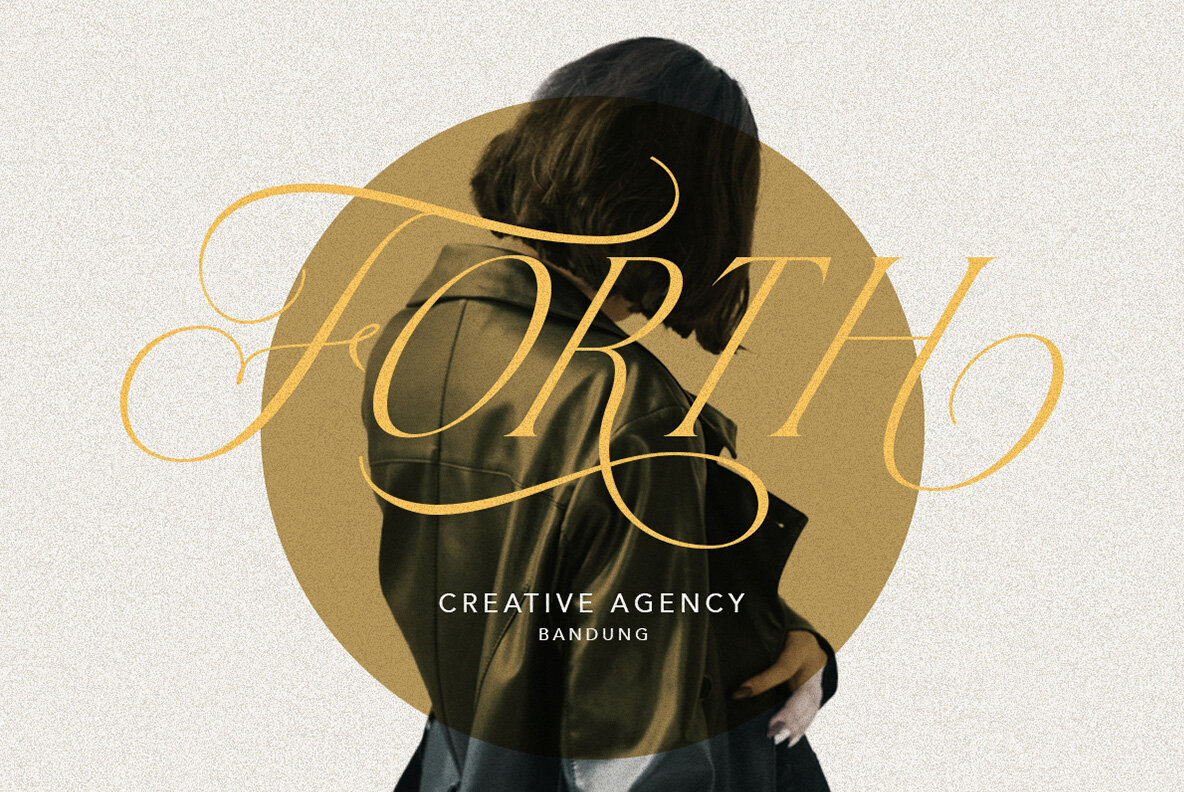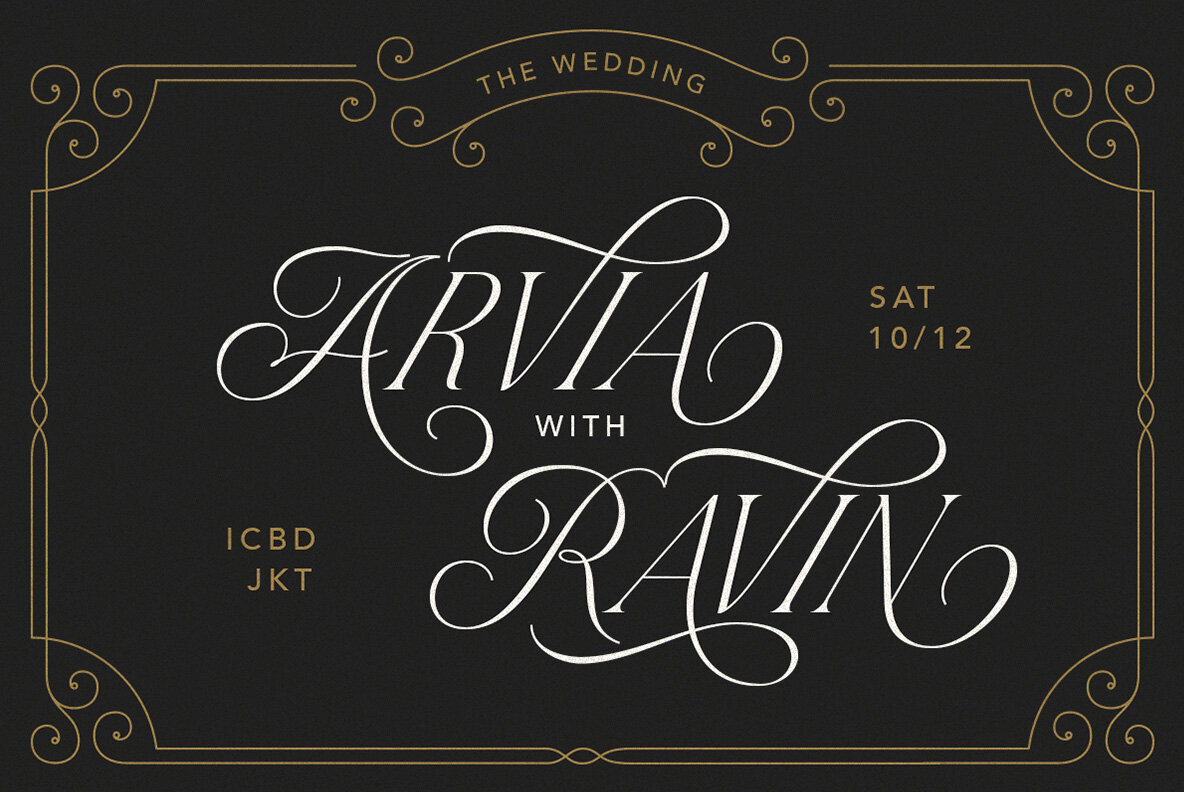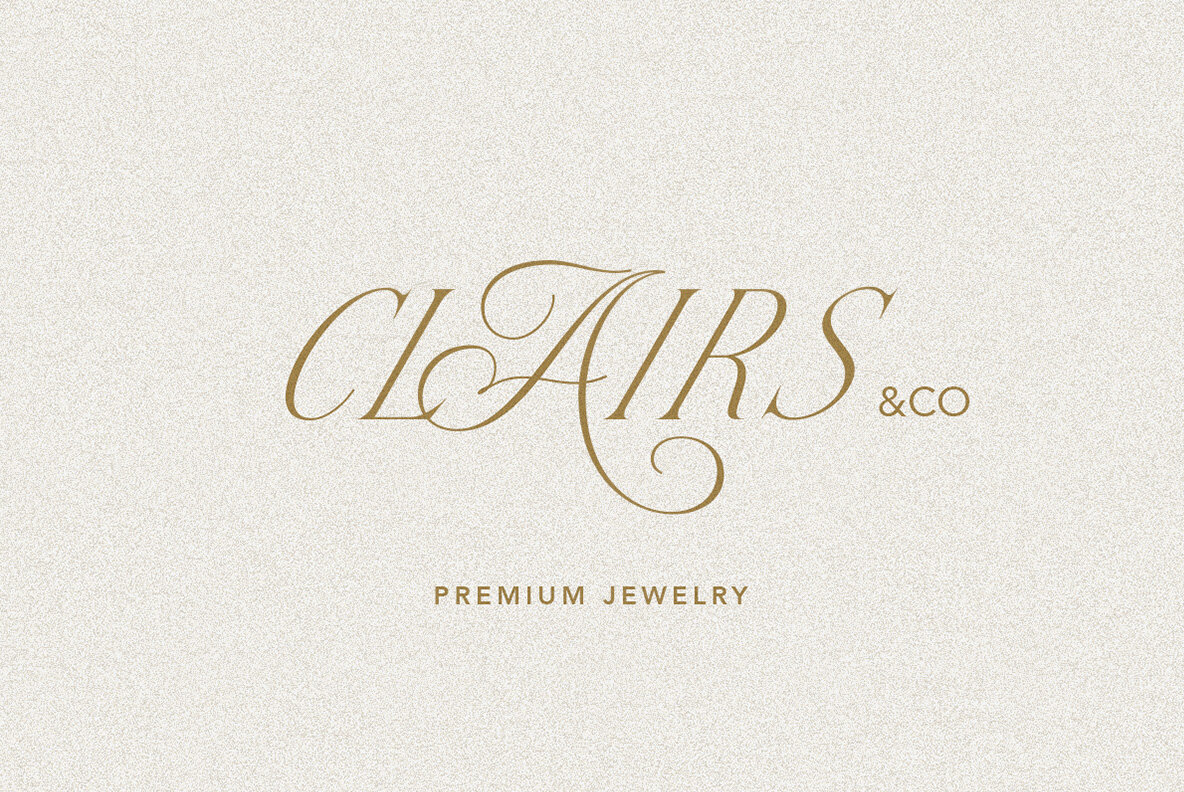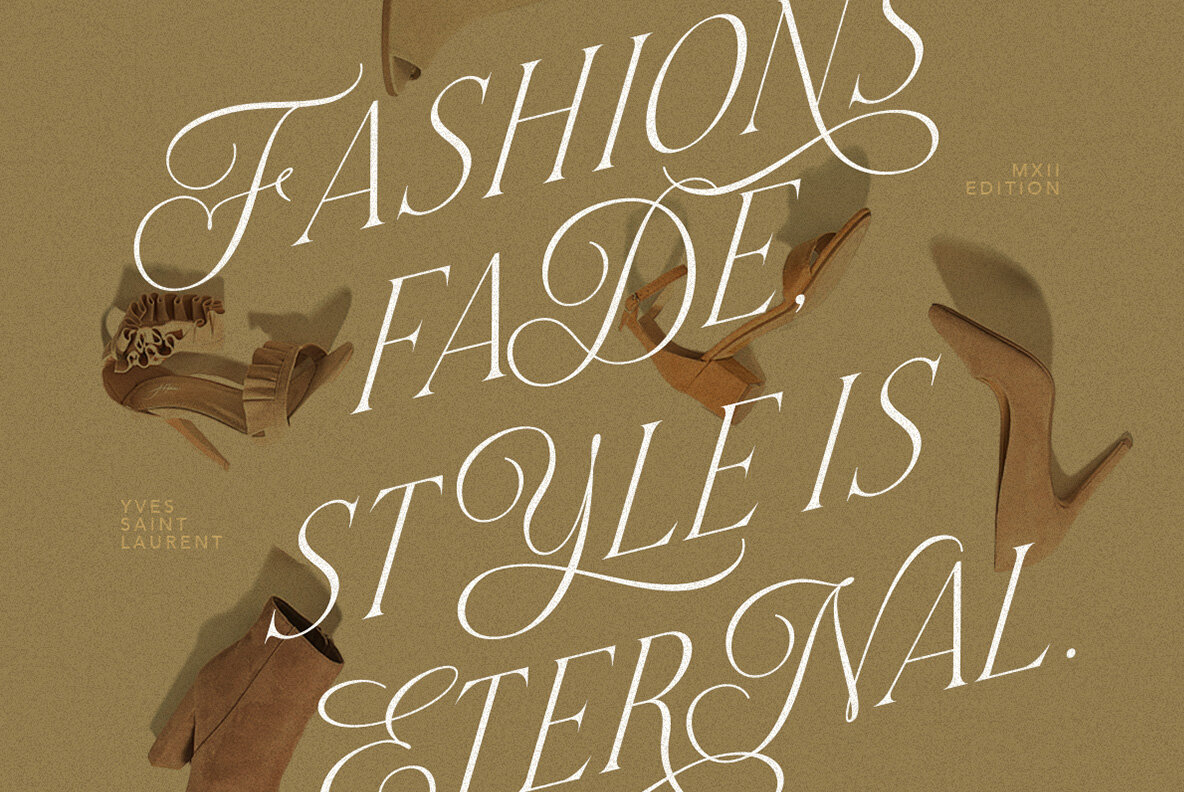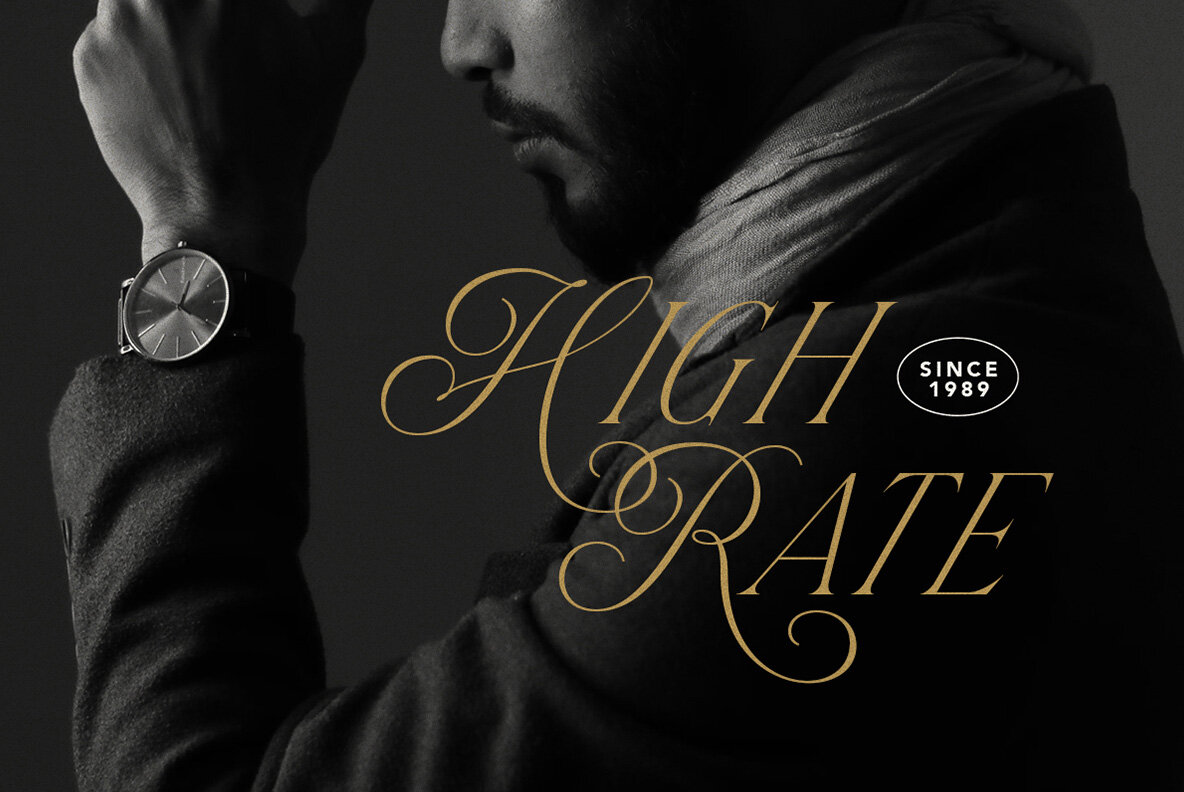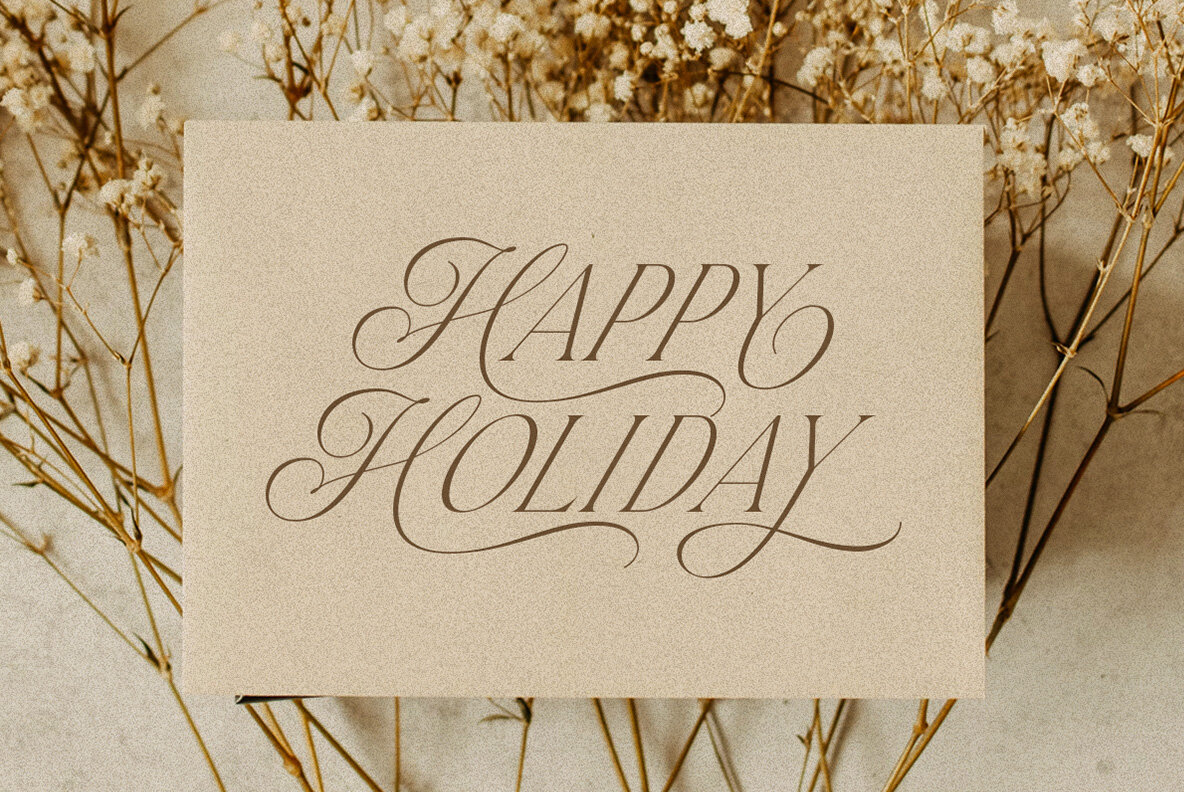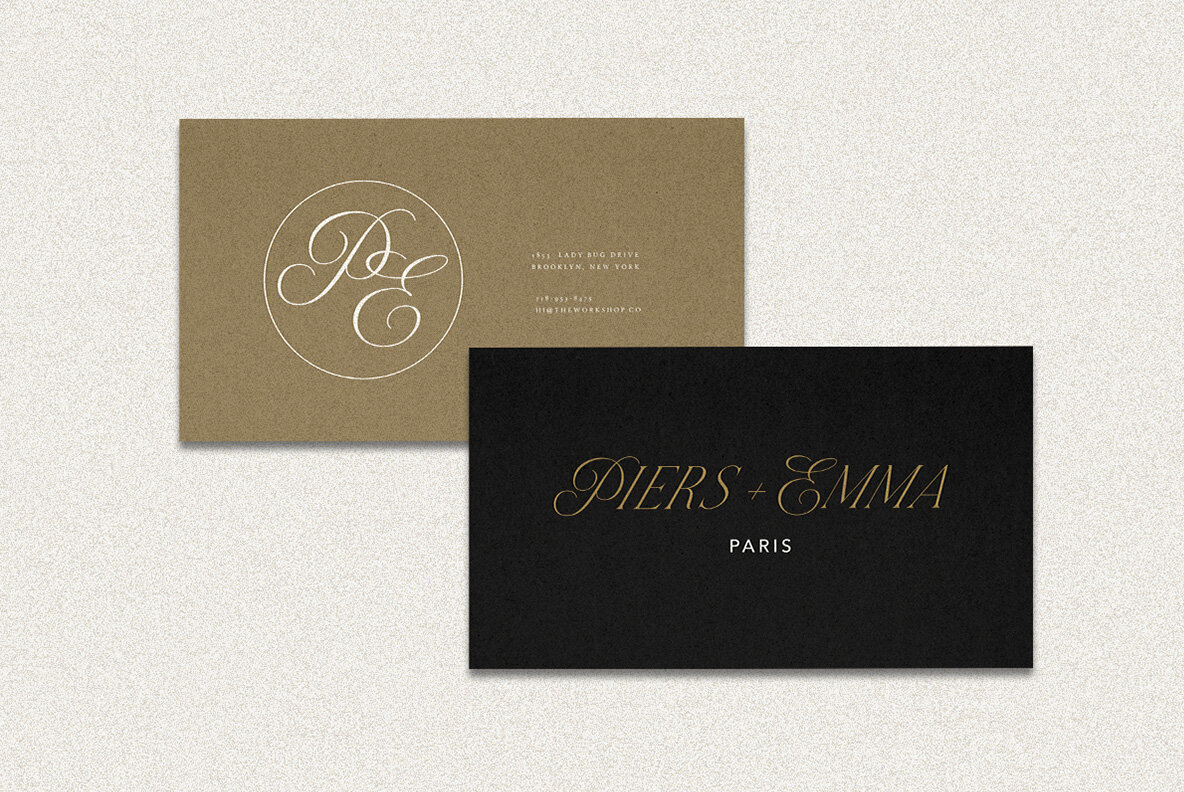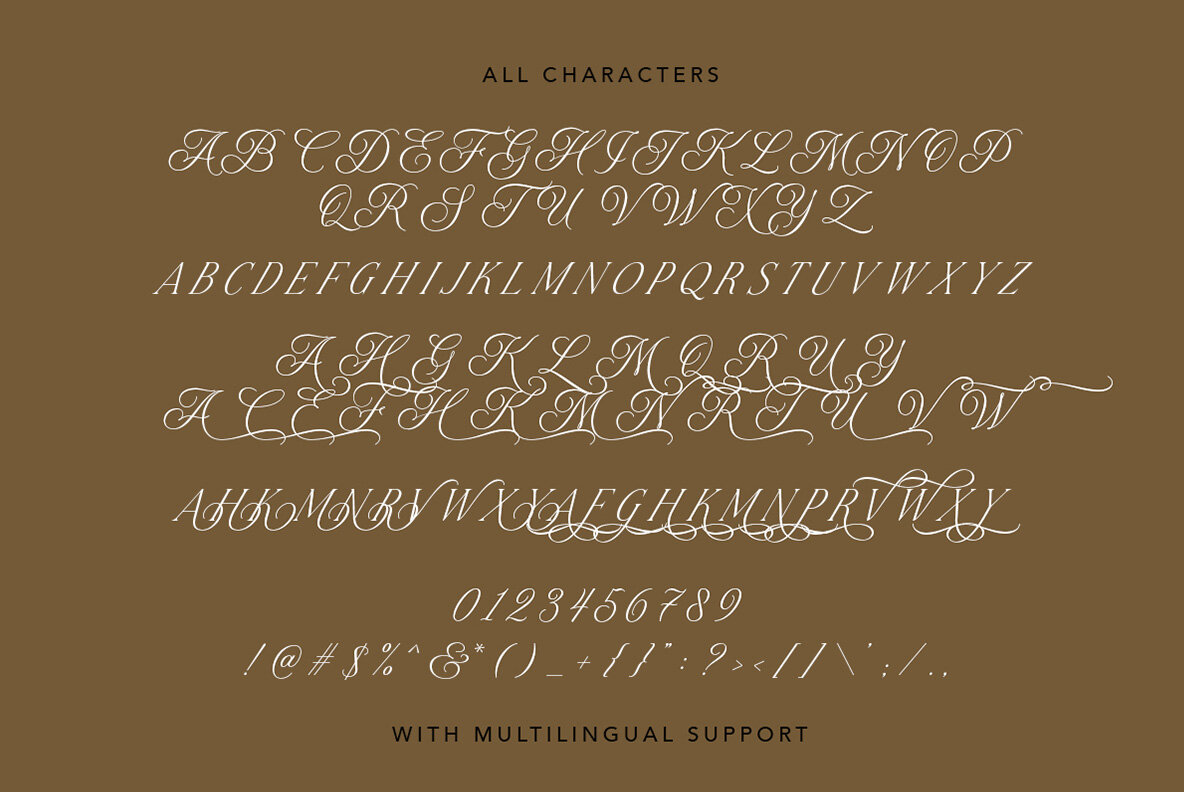
Modern Couture Font
Modern Couture
Modern Couture is an elegant and modern font that combines a serif with a classic script style. Its many alternates characters, including swashes, provide additional beauty and versatility, perfect for any design.
The font's elegant and sophisticated look, with its classy characteristic, makes it ideal for high-end projects like luxury branding, packaging and the other various formal forms such as invitations, labels, logos, magazines, books, greeting / wedding cards, packaging, fashion, make up, stationery, novels, labels or any type of advertising purpose. With its perfect balance of modern and classic design, Modern Avenue provides a timeless and refined feel to any design.
Features :
- Numbers and Punctuation
- Alternates & Ligatures